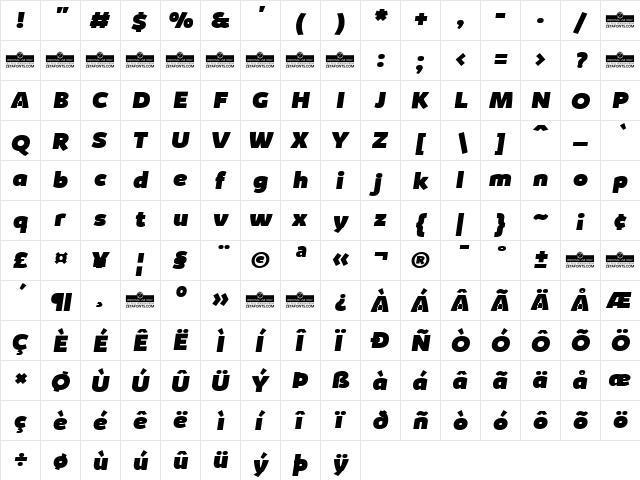
Kabrio Heavy Italic
| Foundry | studio kmzero |
| Designer | Corimo Lorenzo Pancini |
Design Context for Kabrio Typeface
Kabrio takes a measured approach to typography — its balanced proportions and neutral character make it a reliable workhorse for both digital and print work. The dynamic lean of this cut emphasises speed and emphasis in any layout.
Pro Tip: Use Kabrio for emphasis, pull quotes, and subheadings where its slanted energy can add rhythm to the layout.